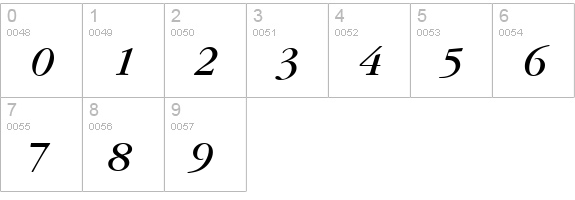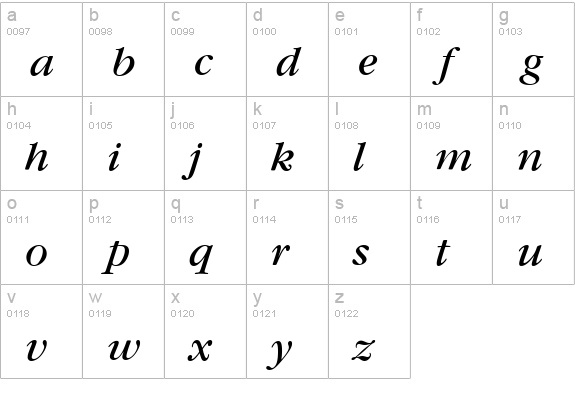
Garfeld-Nova Italic is a distinctive, italic variant in the Garfeld typeface family \xE2\x80\x94 well suited to design and typography projects.
Garfeld-Nova Italic font is a stylish and modern typeface that exudes elegance and sophistication. Its sleek and flowing design adds a touch of grace to any project, making it perfect for a variety of applications including branding, packaging, and advertising. The italicized style of Garfeld-Nova brings a sense of dynamism and movement to text, making it stand out and capture attention. One of the best things about Garfeld-Nova Italic font is that it is completely free to download at FontsMarket.com. This means that you can access this stunning font without any cost, allowing you to elevate your designs without breaking the bank. Don't miss out on the opportunity to enhance your projects with the beauty and versatility of Garfeld-Nova Italic font – download it for free today at FontsMarket.com!